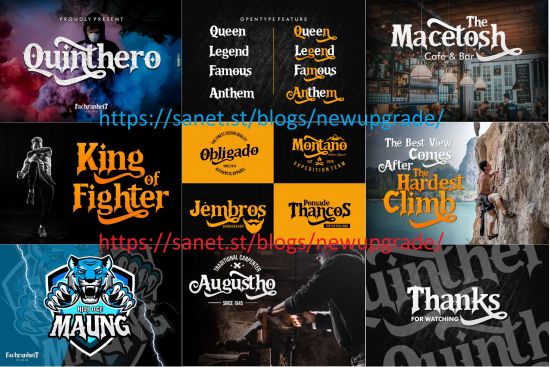
The Quinthero is an old, vintage display typeface. It has regular characters. It can be used for logos, t-shirts, quotes, badge, branding, headers, labels, packaging and much more!
Features :
Character Set A-Z
Numerals & Punctuations (TrueType Standard)
Accents (Multilingual characters)